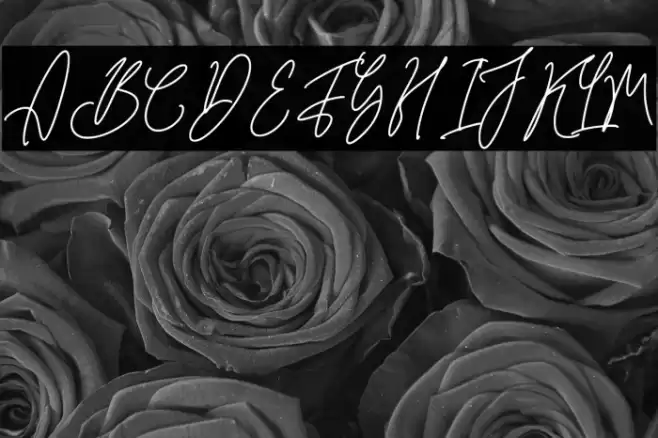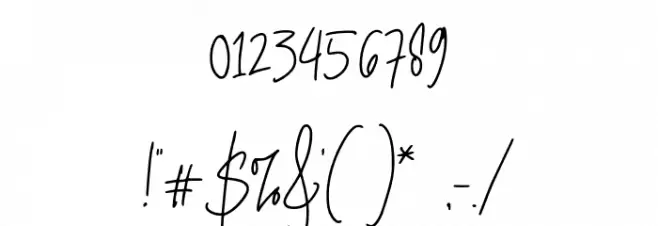
QinderiaSignature-Regular Font
QinderiaSignature-Regular Description
This font exudes a personal and artistic flair, characterized by its flowing, cursive style that mimics natural handwriting. The letters are elegantly connected, with a consistent slant that adds to its dynamic appearance. The strokes vary in thickness, providing a sense of movement and fluidity. The uppercase letters are bold and prominent, while the lowercase letters maintain a delicate and graceful form. Numbers and special characters are seamlessly integrated, maintaining the overall aesthetic. This font is ideal for adding a personal touch to any design project.
A flowing, cursive font with a natural handwriting style from Uncategorized fonts.
- Font: QinderiaSignature-Regular
- Proposed Projects: Ideal for personal branding, invitations, greeting cards, and artistic projects.
- Use Case: Logos, Invitations, Personal branding